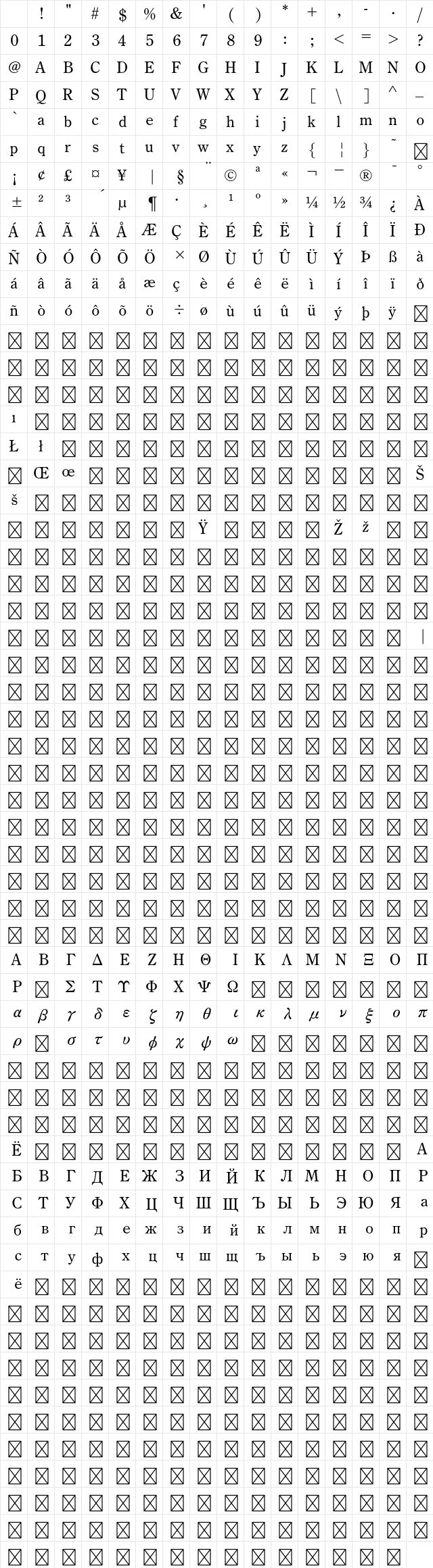
A-OTF Shuei YokobutoMin Std M
Style: M
Designer: Dai Nippon Printing Co., Ltd.
Design Context for A-OTF Shuei YokobutoMin Std
A-OTF Shuei YokobutoMin Std is a composed and adaptable typeface that performs quietly and consistently across a wide range of design contexts.